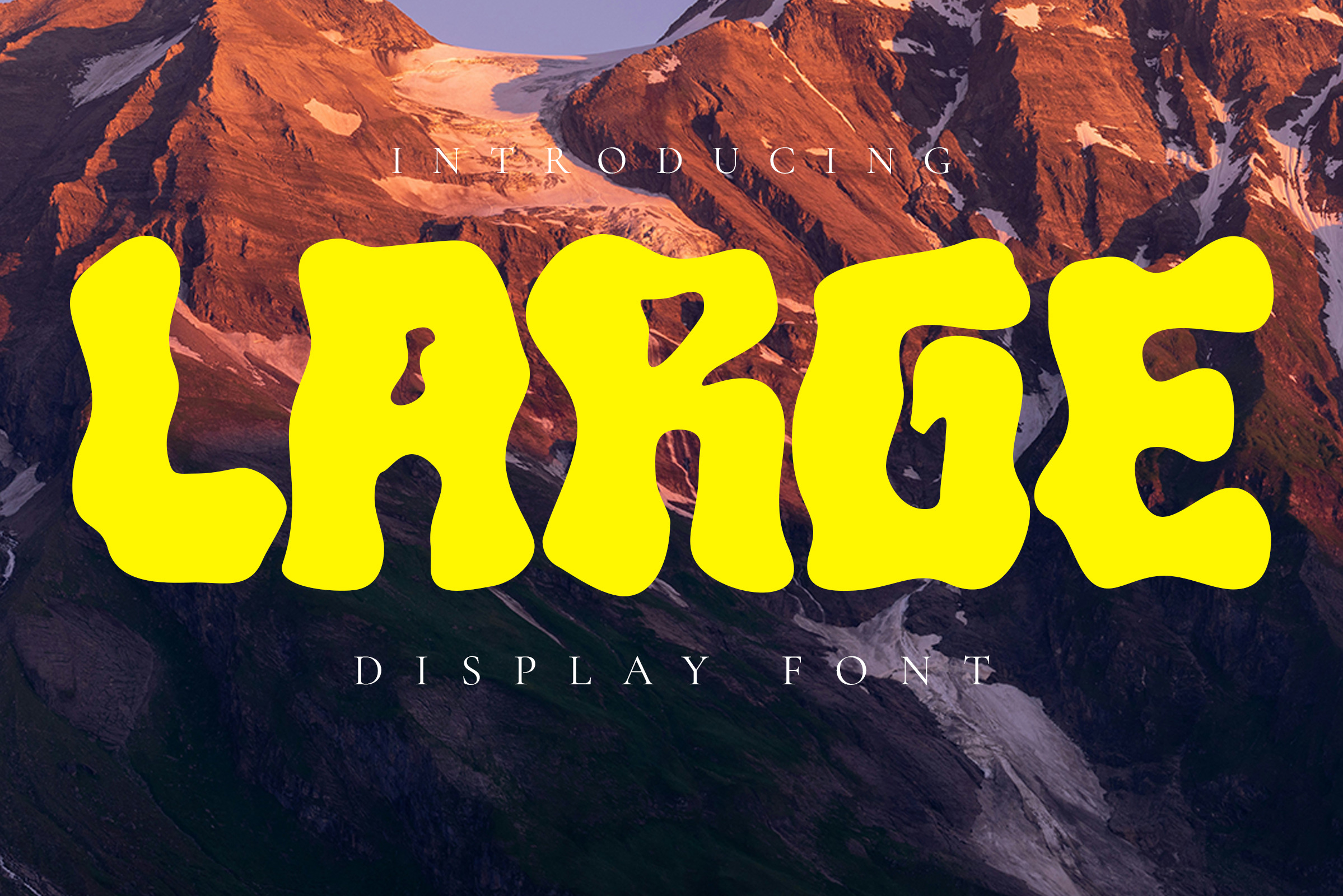
Large - Display font
an exclusive handcrafted display font meticulously designed to breathe life into your creative projects. Large display font, seamlessly fusing style with versatility.Ideal for fashioning statement-making t-shirts. Its unique flair also excels when it comes to branding.